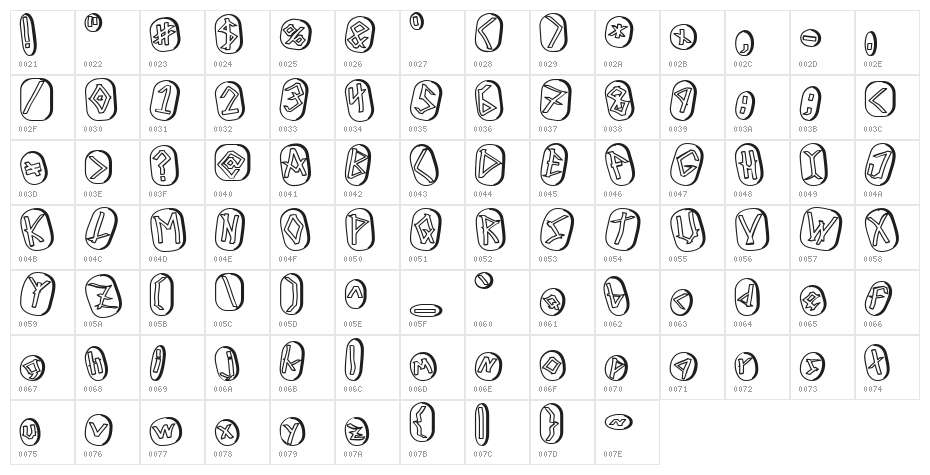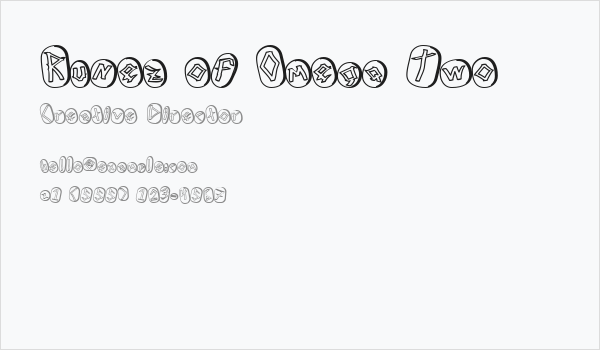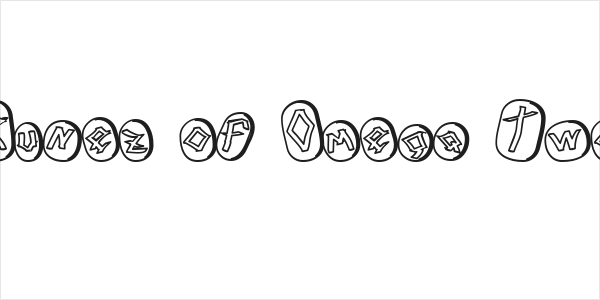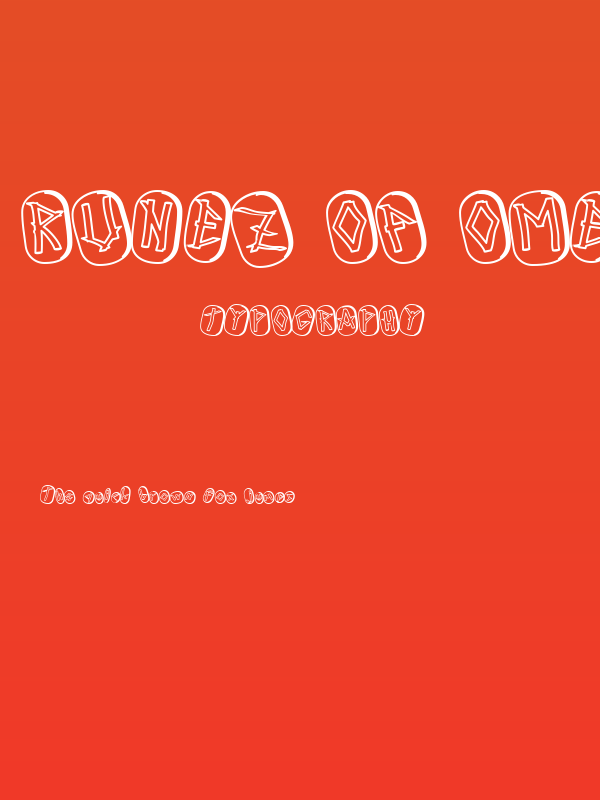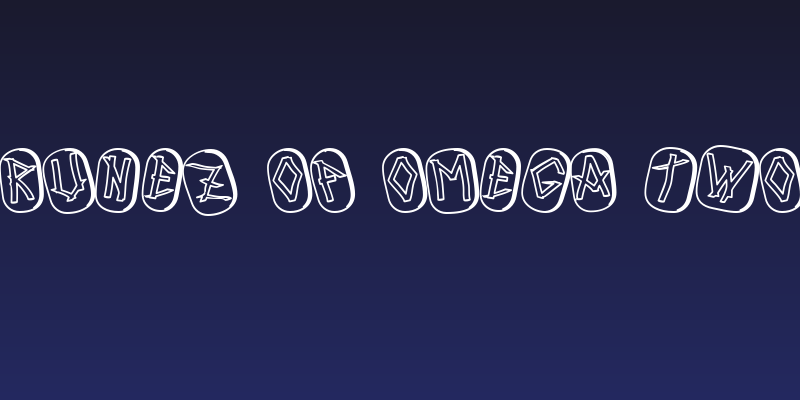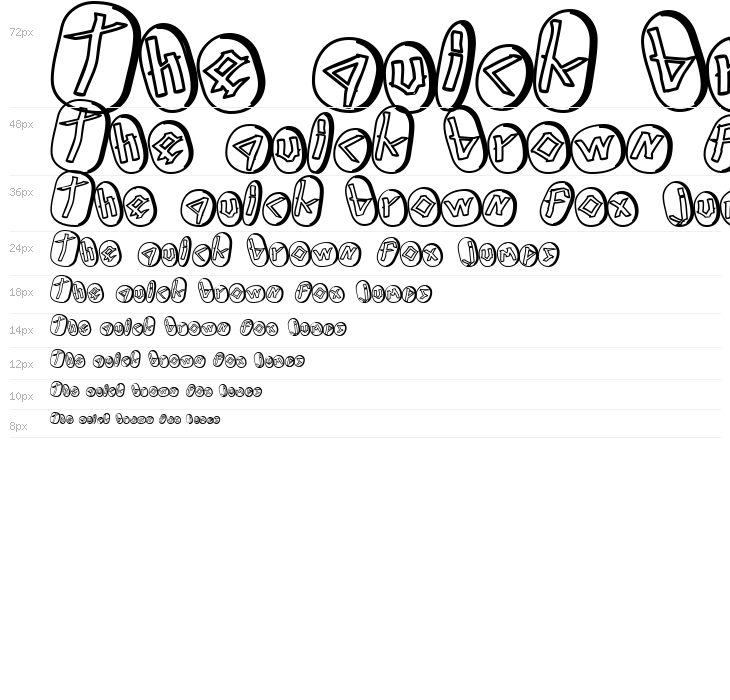
Runez of Omega Two Font
Runez of Omega Two Description
This font features a unique and decorative style, with each character encased in an oval shape, reminiscent of ancient runes or symbols. The letters and numbers are crafted with angular, geometric lines that give them a mystical and enigmatic appearance. The bold outlines and irregular shapes create a sense of depth and dimension, making it stand out as a display font. The overall design is both playful and mysterious, suitable for projects that require a touch of fantasy or ancient themes.
| Proposed Projects | Ideal for fantasy-themed designs, game titles, book covers, posters, and any project needing a mystical or ancient aesthetic. |